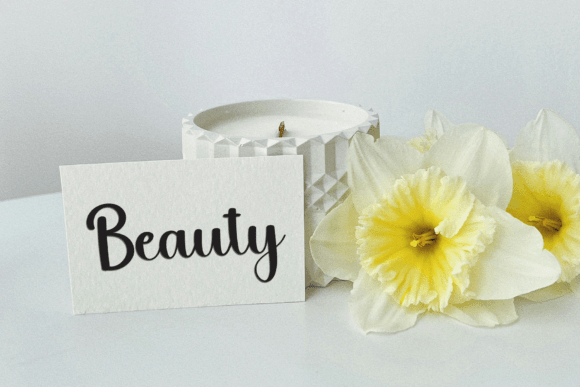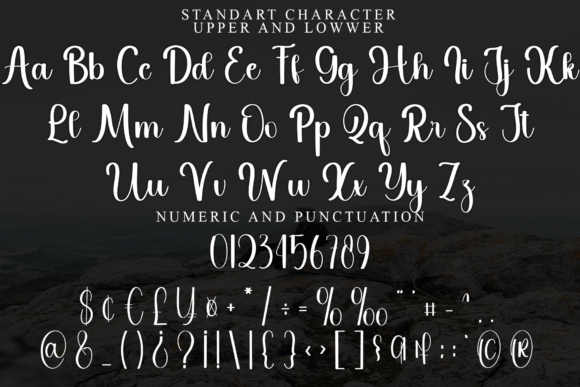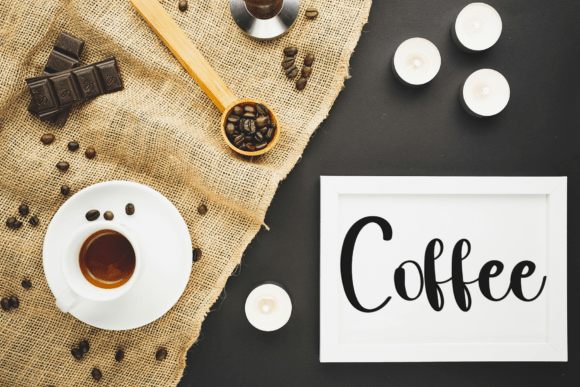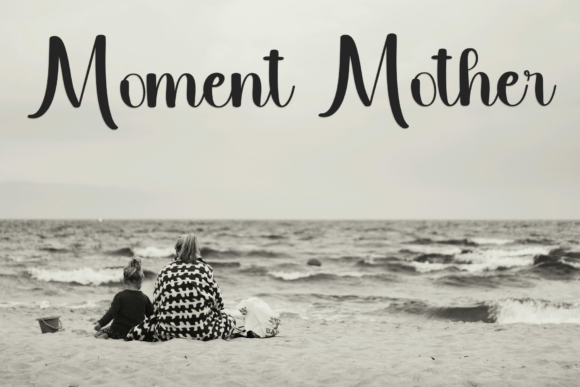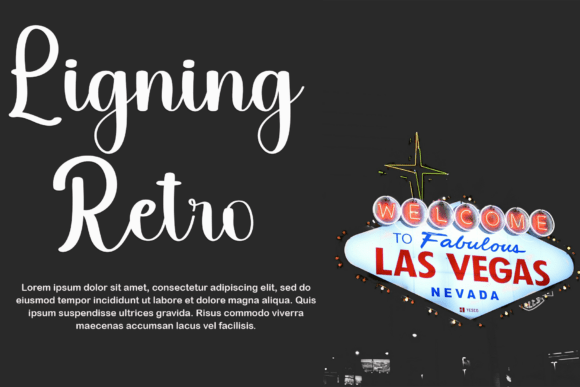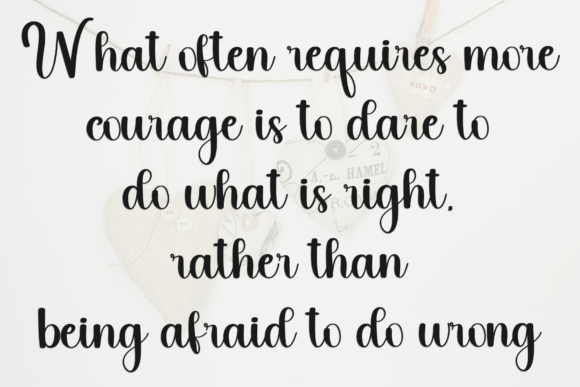
Introducing Daily Sunday Font: The Perfect Blend of Clean and Friendly
Are you a designer, blogger, or crafty entrepreneur looking for a font that embodies a sense of approachability and warmth? Look no further than the Daily Sunday Font. This beautiful script font offers a clean, handwritten look that’s perfect for lifestyle blogs, casual branding, or everyday quotes.
The Characteristics of Daily Sunday Font
Daily Sunday Font boasts a unique blend of cleanliness and personality. Its handwritten look is easy to read, making it perfect for body text, headings, and titles. The font’s friendly and approachable vibe is sure to resonate with your audience, adding a touch of warmth to your content.
- Clean and Readable: The font’s clean lines and simple letterforms make it easy to read, even at smaller font sizes.
- Handwritten Look: Daily Sunday Font’s handwritten look adds a touch of personality to your content, making it perfect for blogs, social media, and marketing materials.
- Approachable and Friendly: The font’s friendly vibe makes it perfect for lifestyle blogs, casual branding, and everyday quotes.
Perfect for Lifestyle Blogs and Casual Branding
Daily Sunday Font is ideal for lifestyle blogs, where readability and personality are key. The font’s clean and handwritten look makes it perfect for:
- Blog Posts: Use Daily Sunday Font for your blog posts, making them more readable and engaging.
- Social Media: Add a touch of personality to your social media posts with Daily Sunday Font.
- Branding: Use the font for your branding materials, such as business cards, brochures, and letterheads.
Great for Everyday Quotes and DIY Projects
Daily Sunday Font is also perfect for crafty entrepreneurs and DIY enthusiasts. Use the font for:
- Quote Posts: Add a touch of inspiration to your quote posts with Daily Sunday Font.
- DIY Projects: Use the font for your DIY projects, such as crafting, sewing, or woodworking.
- Paper Crafting: Daily Sunday Font is perfect for paper crafting, scrapbooking, and card making.
Tips for Using Daily Sunday Font
Here are some tips for using Daily Sunday Font effectively:
- Pair with Other Fonts: Pair Daily Sunday Font with other fonts to create a unique and visually appealing combination.
- Use for Headings and Titles: Use Daily Sunday Font for headings and titles to add a touch of personality to your content.
- Experiment with Colors: Experiment with different colors to find the perfect combination that matches your brand or blog.
Daily Sunday Font is a beautiful script font that offers a clean, handwritten look with a friendly and approachable vibe. Perfect for lifestyle blogs, casual branding, or everyday quotes, this font is easy to read yet full of personality. With its versatility and charm, Daily Sunday Font is sure to become a favorite among designers, bloggers, and crafty entrepreneurs.